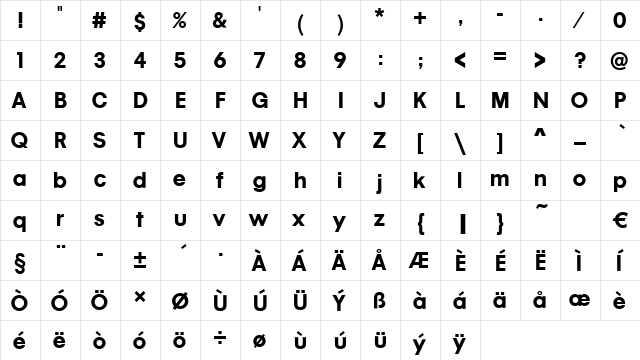
MobilGraphics Regular
Design Context for MobilGraphics Typeface
MobilGraphics is a composed and adaptable typeface that performs quietly and consistently across a wide range of design contexts.